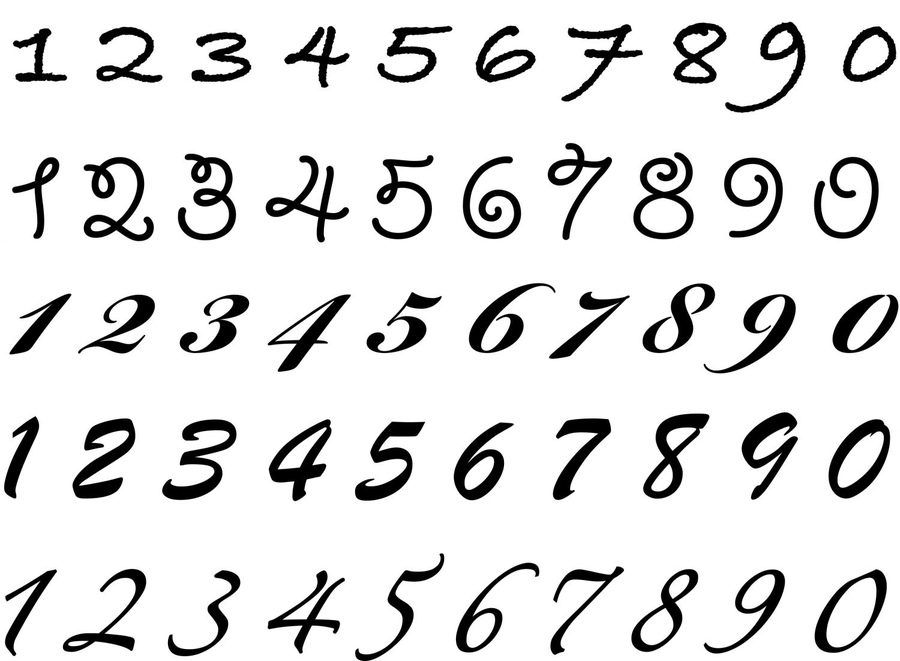
Stylish Number Fonts
Stylish Number Fonts. Brandon grotesque is a number font for those crucial numbers you want to highlight in your design. This website can generate many different types of a stylish text fonts which can be used in many ways.
12 Vintage Number Fonts Images Typewriter Font Numbers
Road rage designed by youssef habchi is the last one of the number fonts on our list. So, if you are looking for amazing number fonts this number font will make your numbers pop. Brandon grotesque is a number font for those crucial numbers you want to highlight in your design.
Pompadour Numbers Designed By Andy Mangold Is One Of The Perfect Chunky Number Fonts.
Barokah Is A Unique Font That Comes With A Set Of Characters Featuring An Unusual Design.
You just type your text or name in the input section and we convert it for you automatically, just copy your stylish name. Chappa is a free resource that can be use for personal or business purposes. The letters follow the same design, providing a cohesive look across a website or in print.
This Is Not A Complete Collection, Many Other Fonts On Fontspace Have Fancy Numbers In The Number Digits.
Road rage designed by youssef habchi is the last one of the number fonts on our list. The font includes numbers that share this same design style. What kinds of stylish text this website can generate?